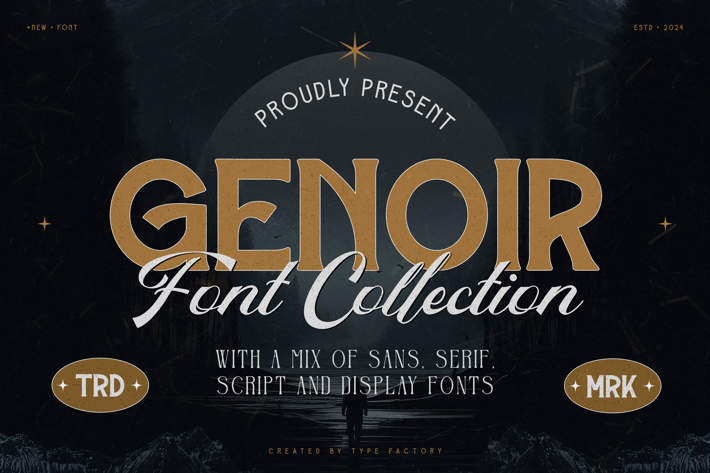
Genoir - Vintage Font Pack
Genoir is a meticulously crafted vintage font pack that brings a sense of timeless elegance and nostalgia to your designs. This collection features a variety of typefaces inspired by classic typography from different eras, making it perfect for creating logos, posters, packaging, and editorial layouts that require a touch of vintage charm. Each font in the Genoir pack is designed to evoke a sense of history and sophistication, providing you with versatile options to enhance your creative projects with an authentic and refined aesthetic.